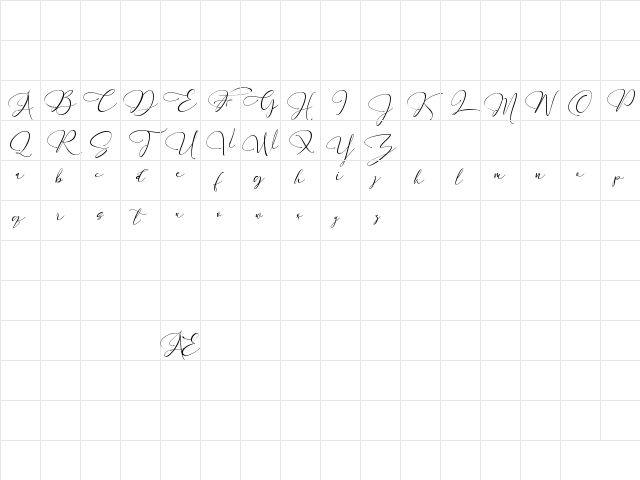
England Reality Regular Free Font
England Reality Regular
Designer: Aldedesign 2019
Design Context for England Reality
England Reality is a composed and adaptable typeface that performs quietly and consistently across a wide range of design contexts.